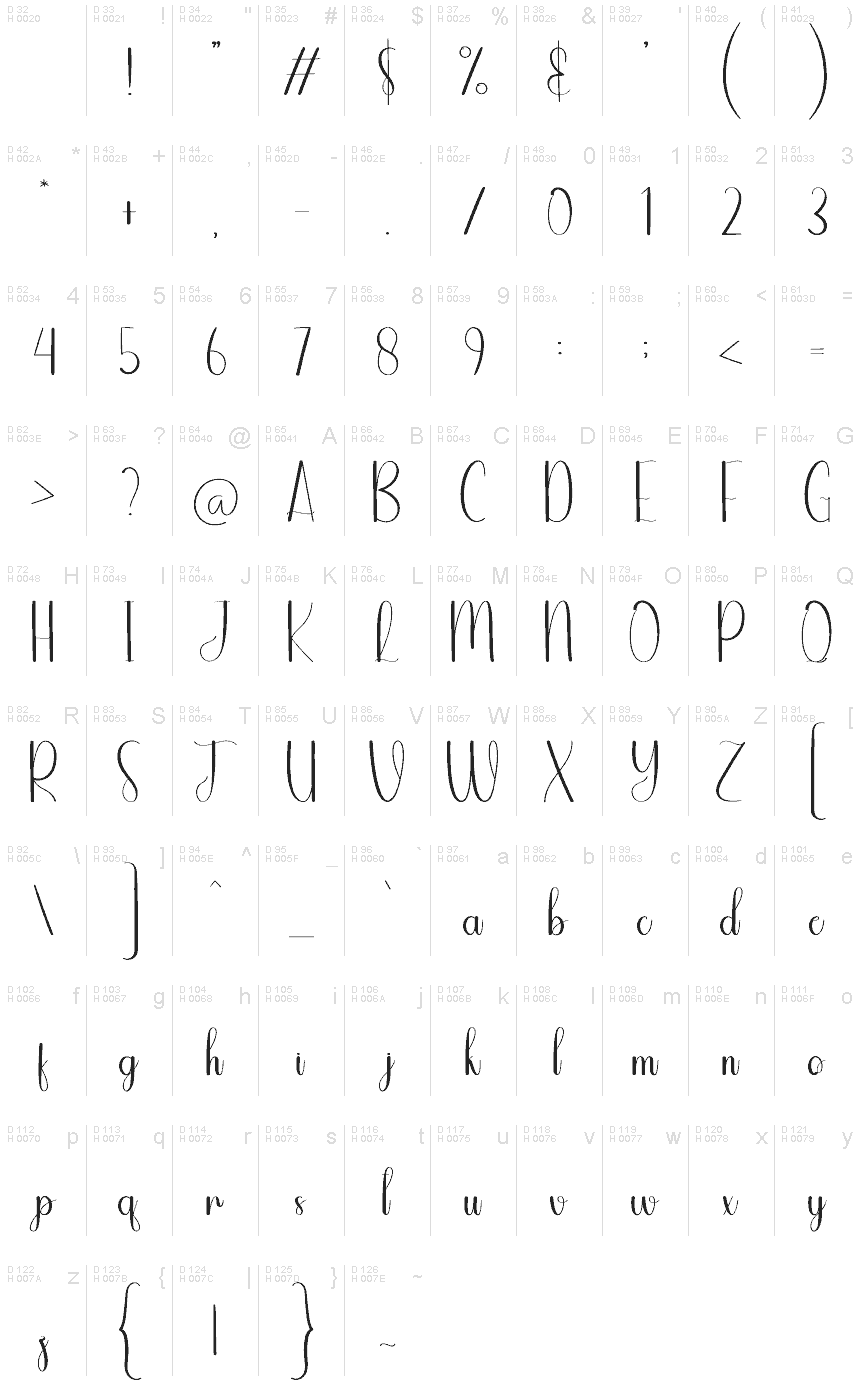
Line Space
Line Space font by Andi Moz skillfully combines an elegant feel with a natural appearance to bring forth expressive designs. This handwritten free font has light, thin strokes with almost no contrast in the letters’ width and a connecting style with no edges. The letters flow into each other naturally to present sophisticated script-style texts and longer titles.
Be creative and use this decorative typeface for novel covers, social media posts, invitations for weddings or formal events, cards of all types including business cards and postcards, packaging designs for luxury products, flyers, brochures, web pages (UX and UI), magazines covers or pages.